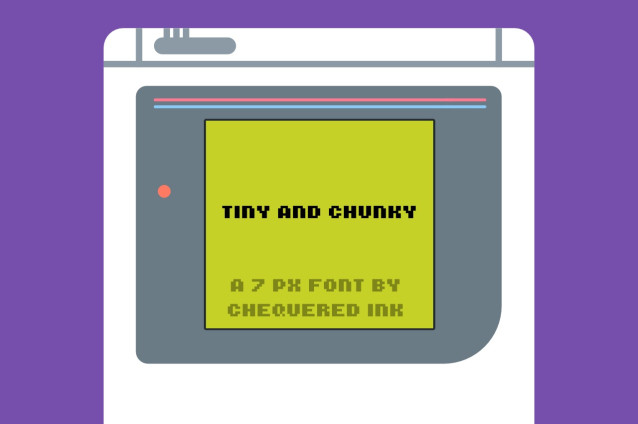
Tiny And Chunky Font
Tiny And Chunky Font – A techno-style font with bold shapes that add a dynamic touch to your designs. This unique font combines futuristic, retro, pixelated and sporty styles, making it versatile for a variety of themes. Complete with special characters and curves, your typography will stand out like never before! Perfect for screens, headlines, posters, flyers, logos, UI, motion graphics and more.